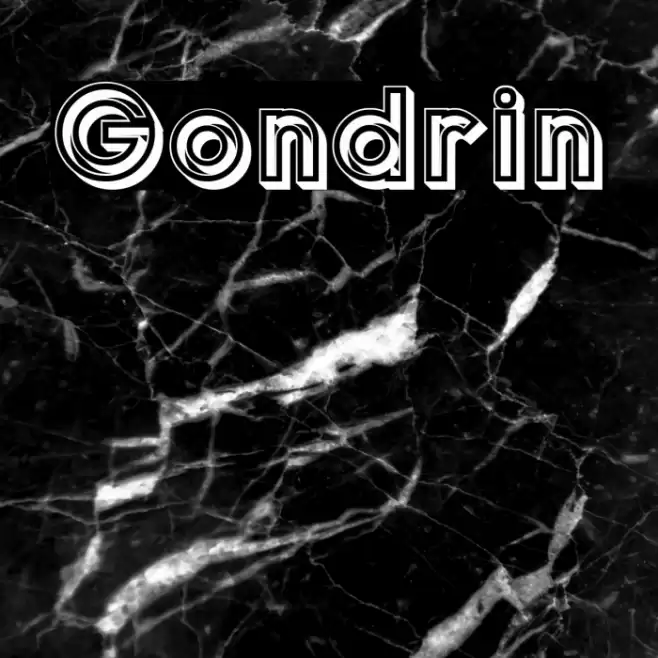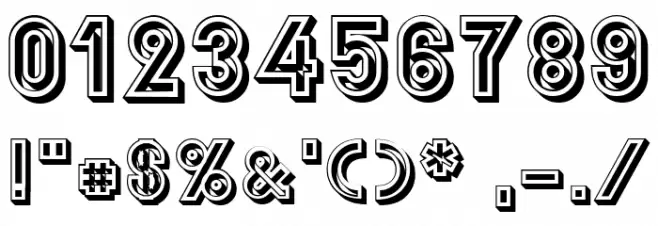
Gondrin Font
Gondrin Description
This font features a bold, decorative style with a three-dimensional effect created by layered outlines. The uppercase and lowercase letters maintain a consistent geometric structure, with clean lines and sharp angles. The numbers and special characters follow the same design principles, ensuring uniformity across all glyphs. The font's unique shadowing and layering give it a striking, eye-catching appearance, making it ideal for standout designs. Its boldness and intricate detailing suggest a modern yet playful aesthetic, suitable for creative and dynamic projects.
A bold, decorative font with a three-dimensional layered effect from Uncategorized fonts.
- Proposed Projects: Ideal for posters, headlines, logos, and branding materials that require a bold and eye-catching design.
- Overall Style: Modern, Decorative